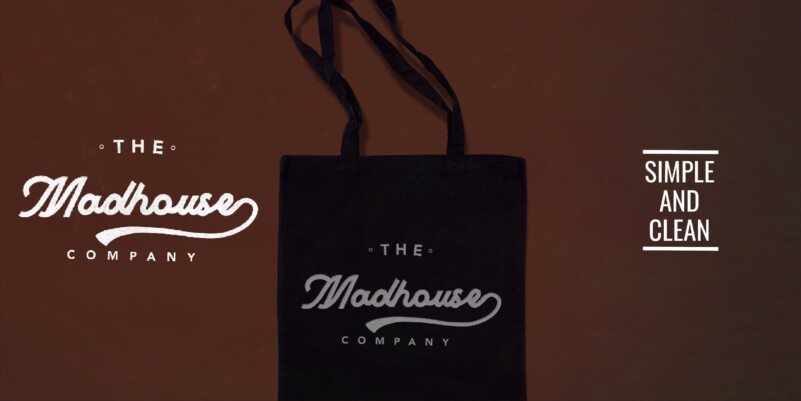
Facttoria Script Font
Facttoria Script Font is playfully nostalgic and delivers an incredible display font. Drawn and created by Toni Studio and Mans Greback in 2022, this calligraphic lettering has a thick character and a strong personality. The Facttoria Script typeface comes in Regular and Italic, and is perfect for a vintage logo or classic headline. Use # after any word to make a tail. Example: Signature# Use _ anywhere in a word to make a swash. Example: Love_letter Use multiple underscores to make different swashes. Example: Hand_____writer The font is built with advanced OpenType functionality and has a guaranteed top-notch quality, containing stylistic and contextual alternates, ligatures, and more features; all to give you full control and customizability. It has extensive lingual support, covering all Latin-based languages, from Northern Europe to South Africa, from America to South-East Asia. It contains all characters and symbols you’ll ever need, including all punctuation and numbers.